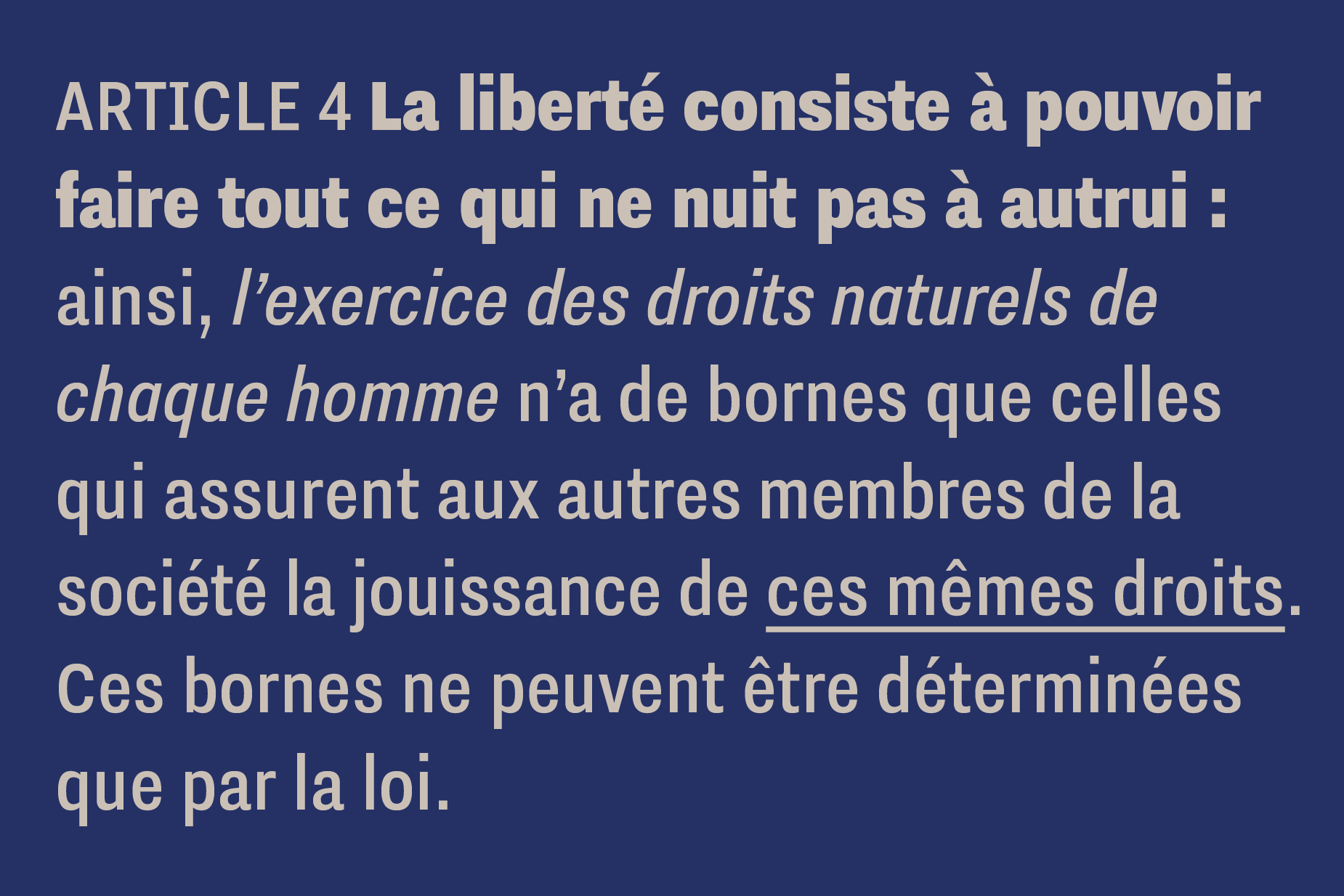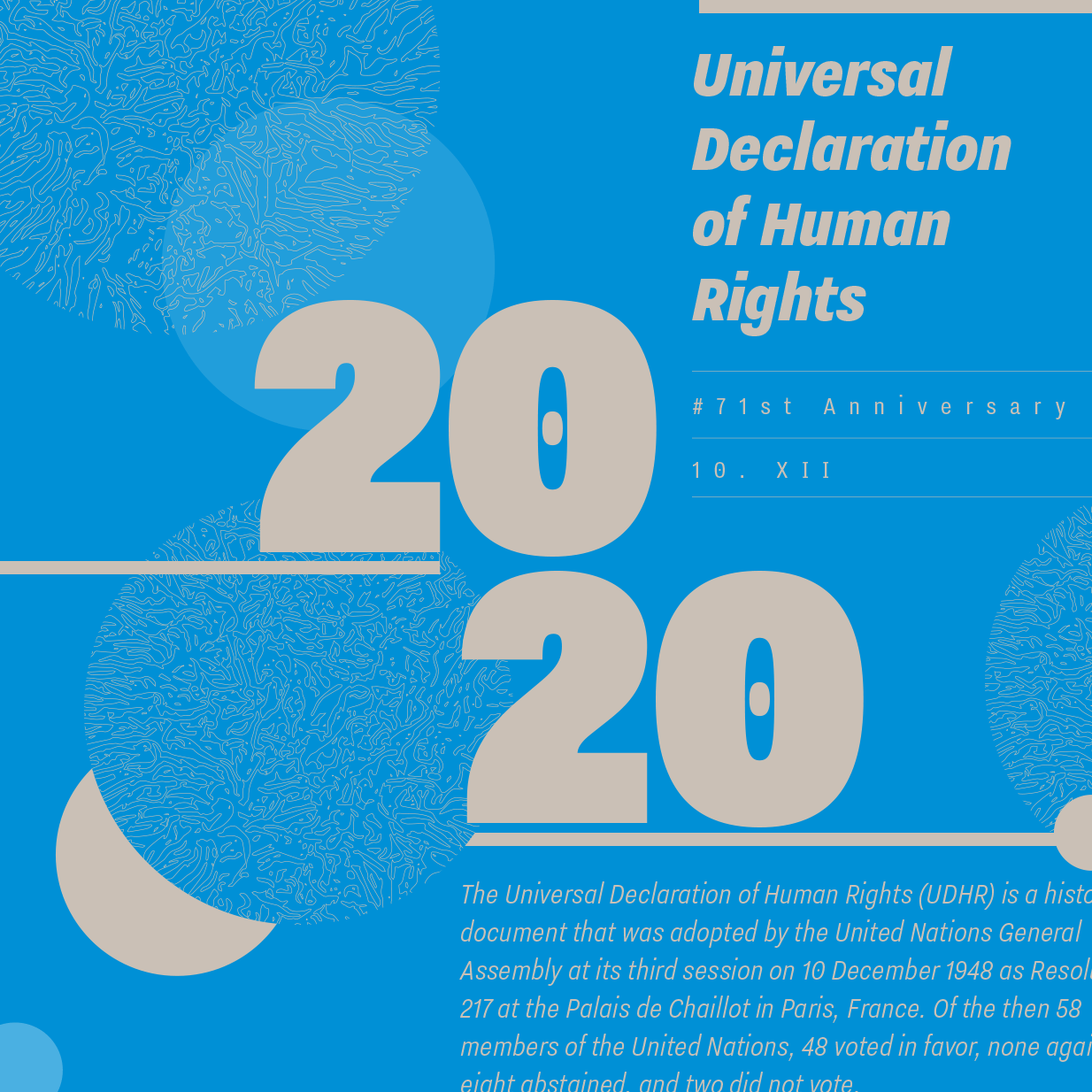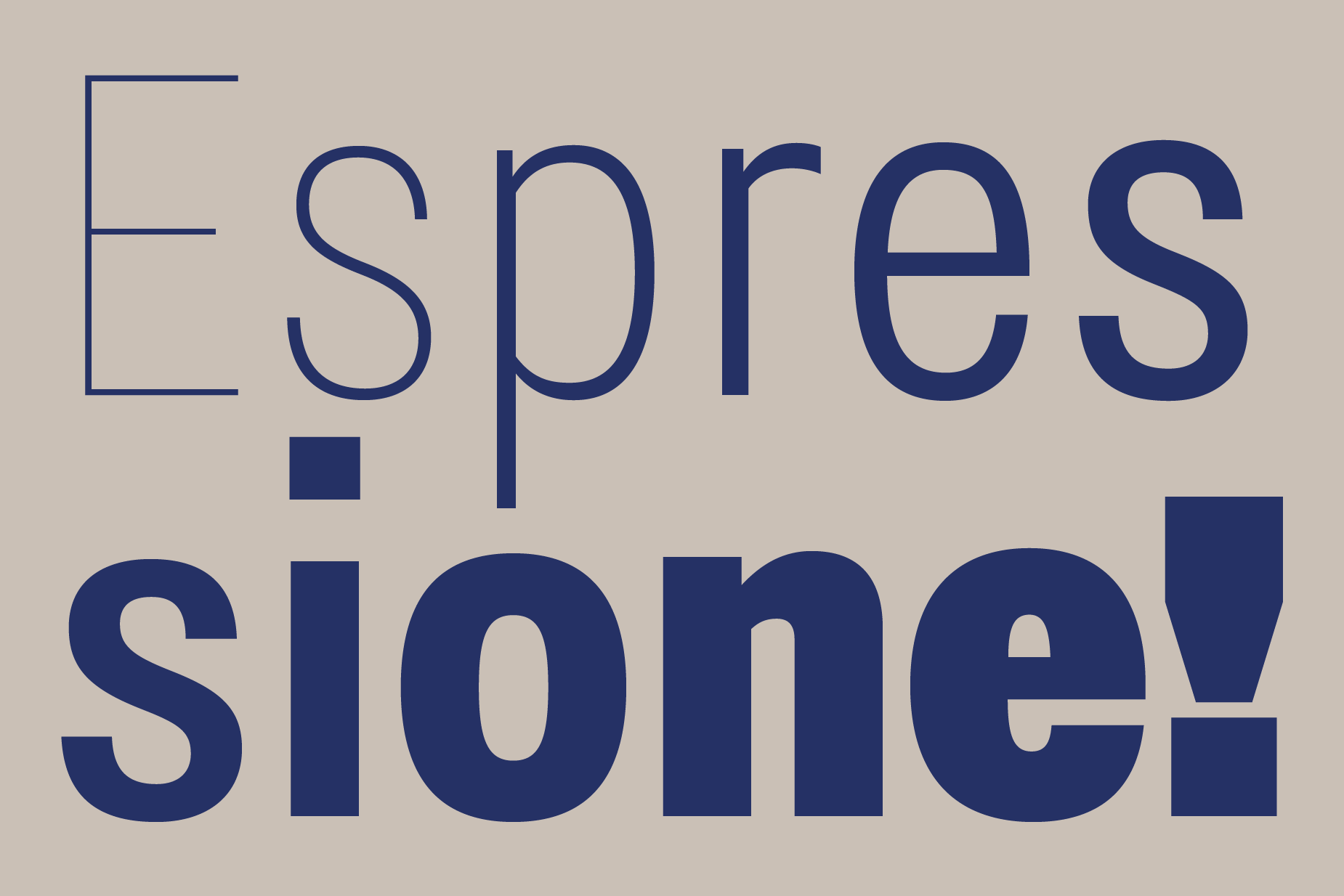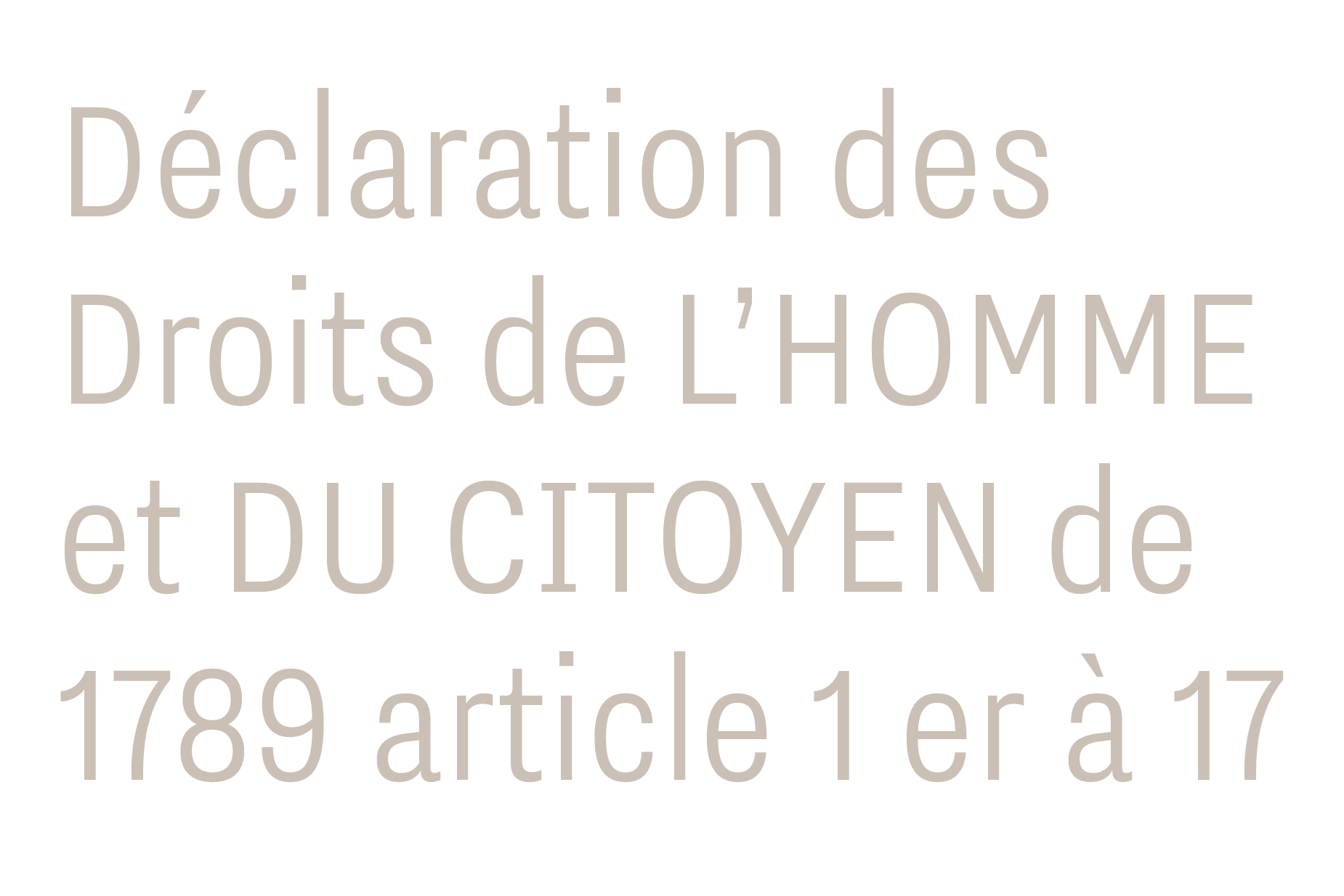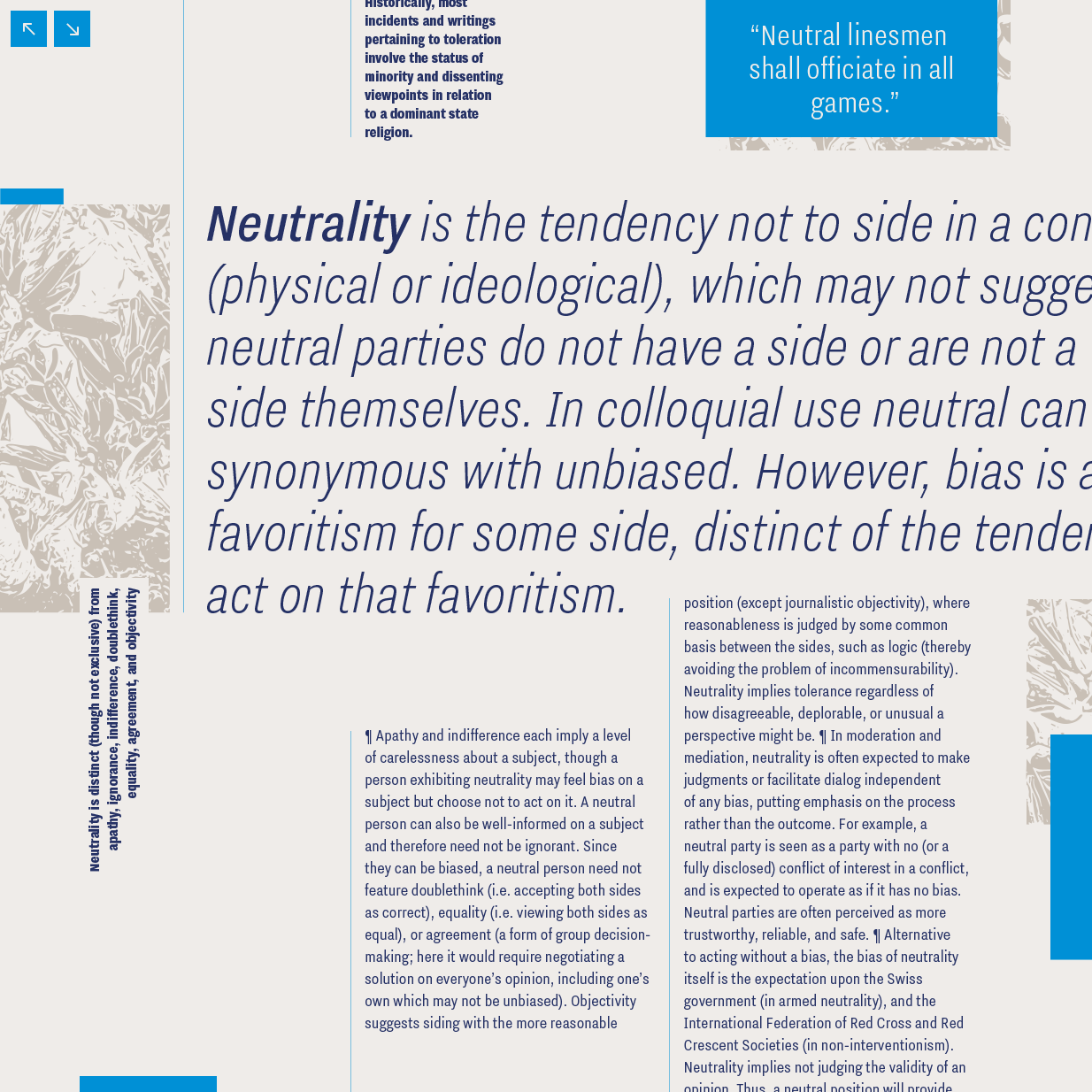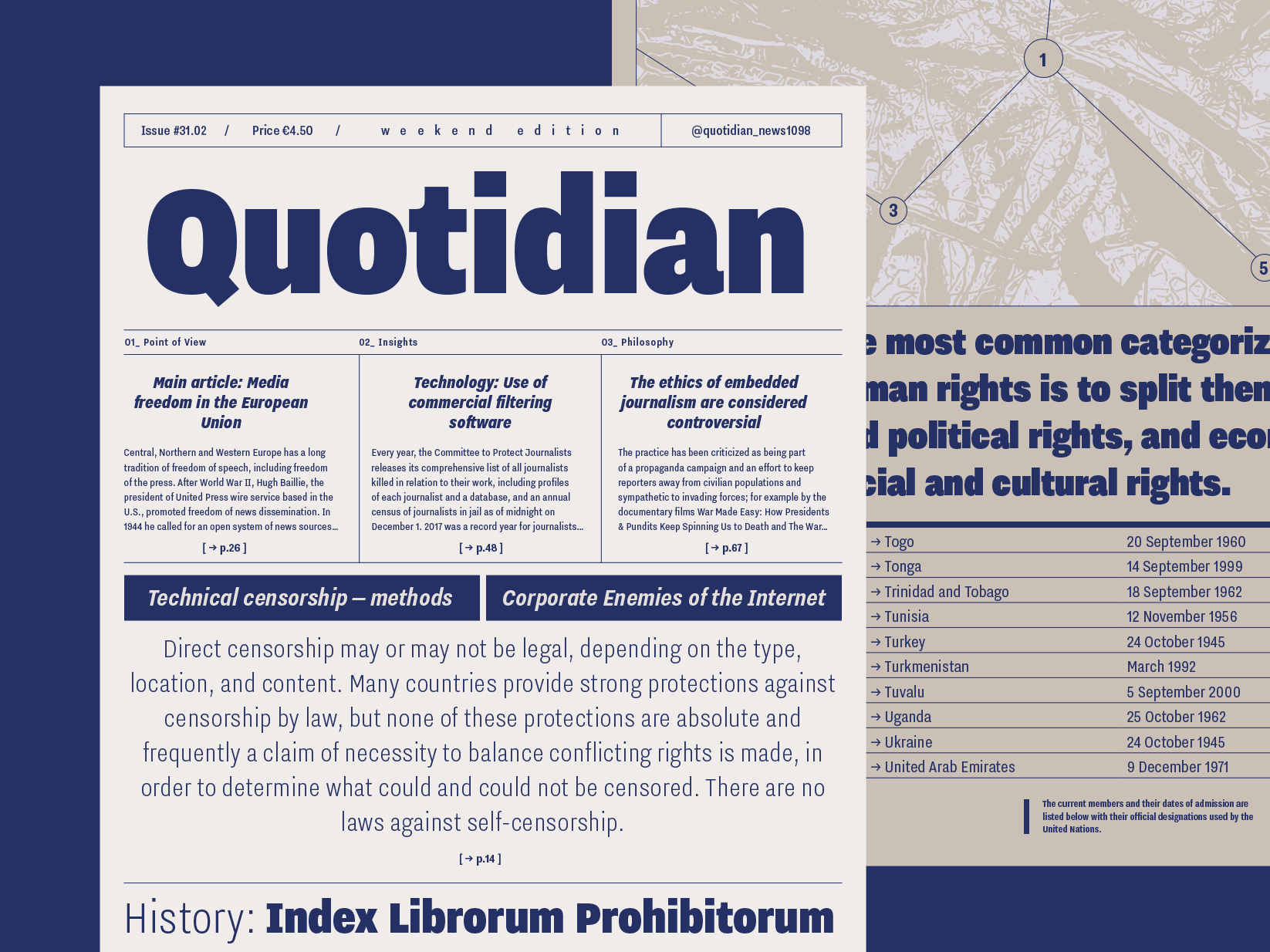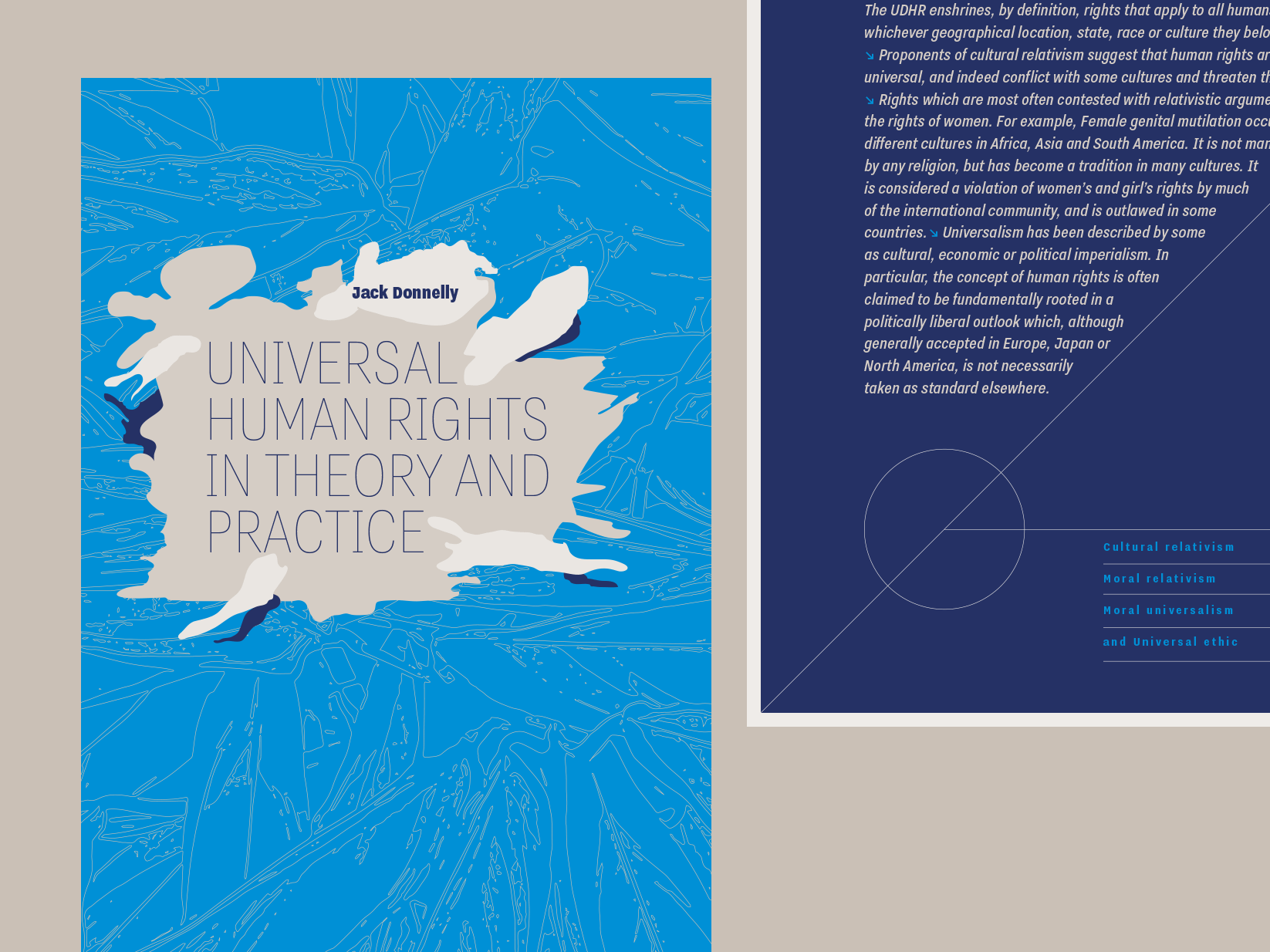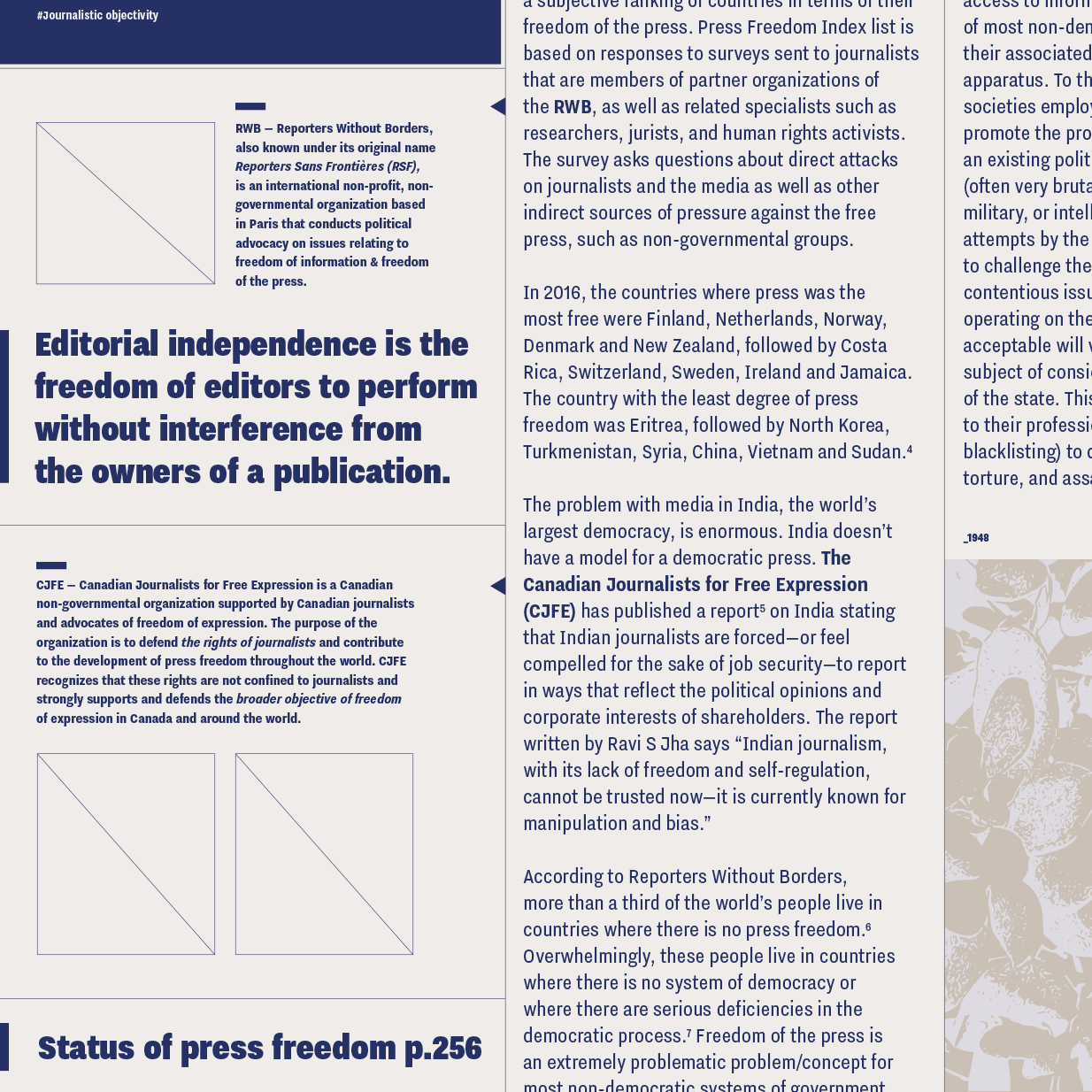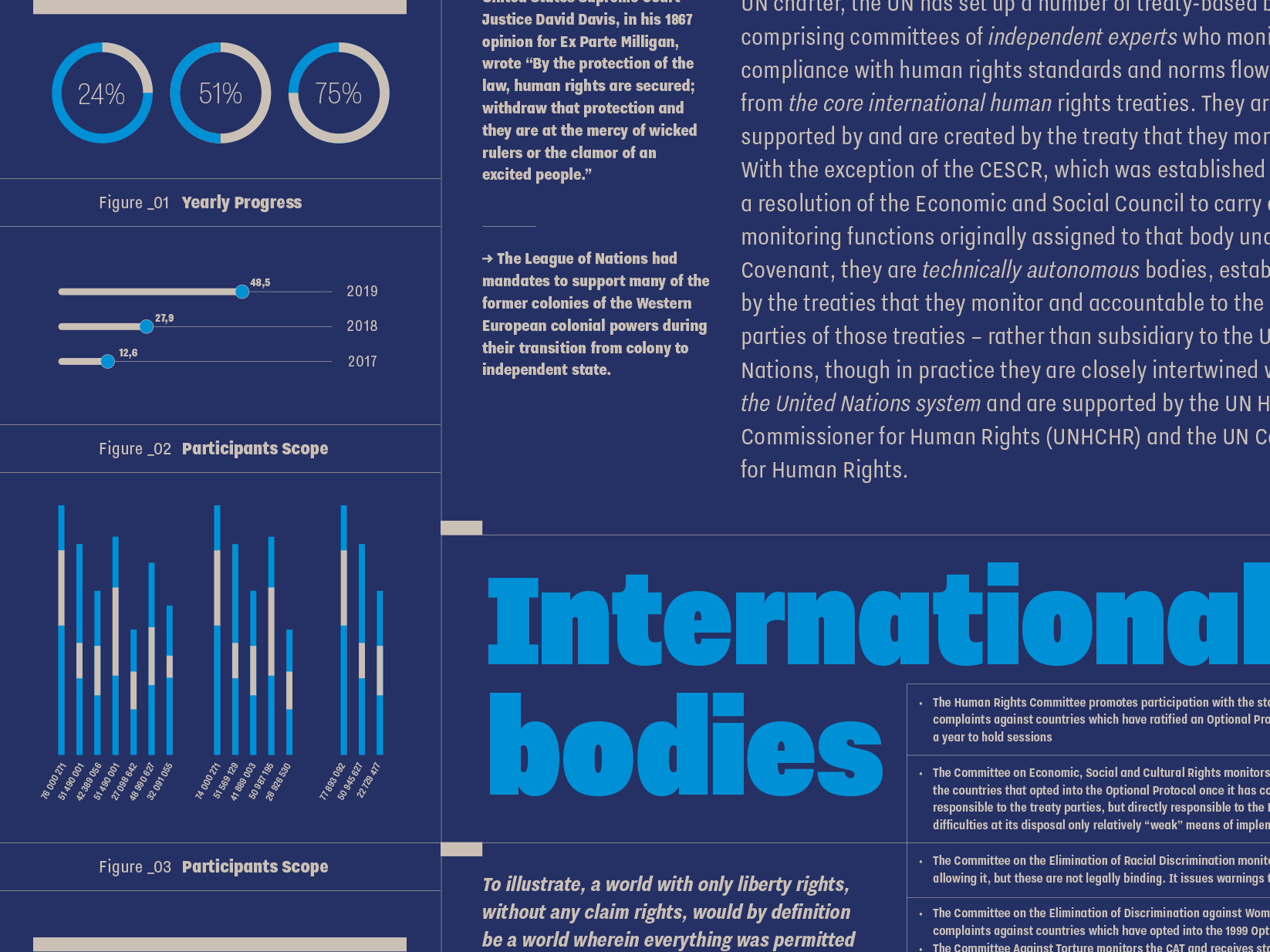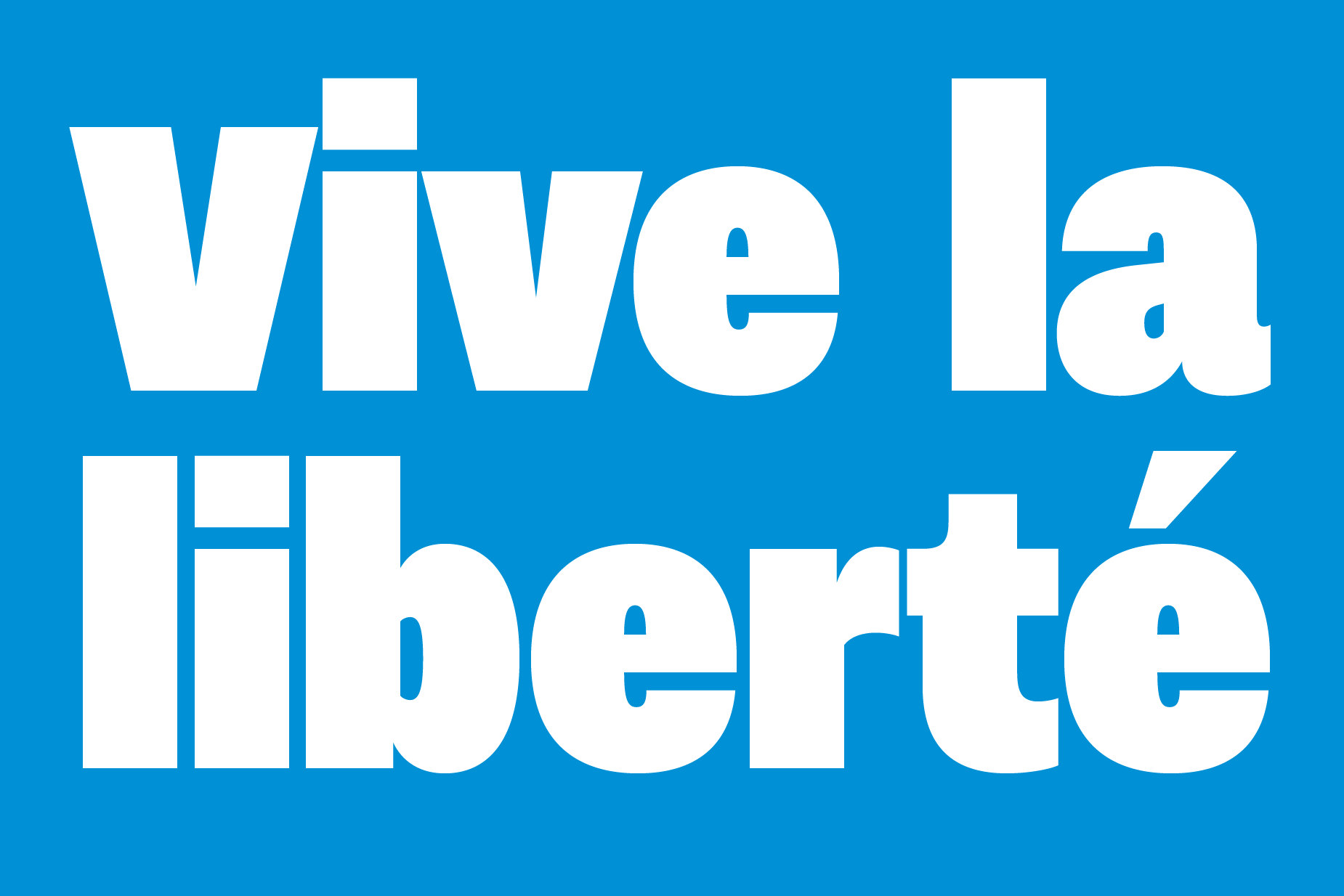
Nitti Grotesk Condensed
Nitti Grotesk Condensed is the space-saving, emphatic companion to our popular Nitti Grotesk family. Designer Pieter van Rosmalen had always planned to draw a Condensed to his generously proportioned modern classic. Being frequently used in editorial and corporate design, the condensed variant now expands the utility of the Nitti Grotesk family for more impact in headlines and advertising, clearer navigation, or other display applications.
While one of Nitti Grotesk’s characteristic features are its friendly, round forms and relatively wide proportions, Nitti Grotesk Condensed is a bit more squarish and boxy. Round shapes become oval and quite narrow which result in a more restrained feel. More urgent, more Breaking News. For even more accelerated urgency, the upright is accompanied by italic styles in the core weights Light to Black. But the weight count goes up to twelve with Hairline, Thin, ExtraLight, as well as Extra Black and Ultra (black) on the extremes. Use it large and bold as a display addition to Nitti, Nitti Grotesk, or just by itself or with other typefaces. Nitti Grotesk Condensed and its adaptive flavour pairs well with a large variety of fonts.